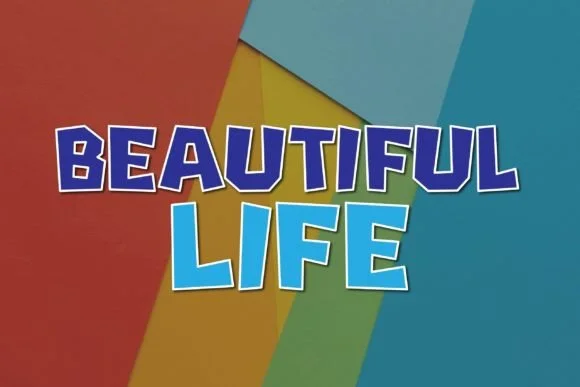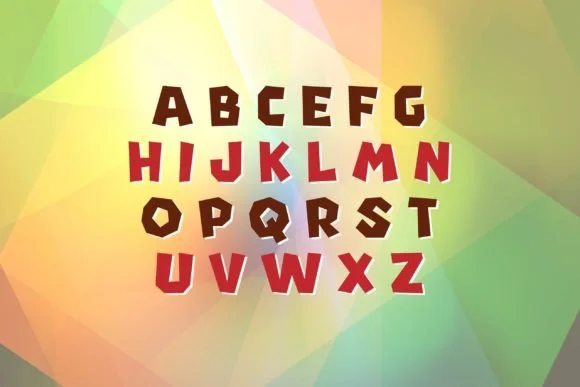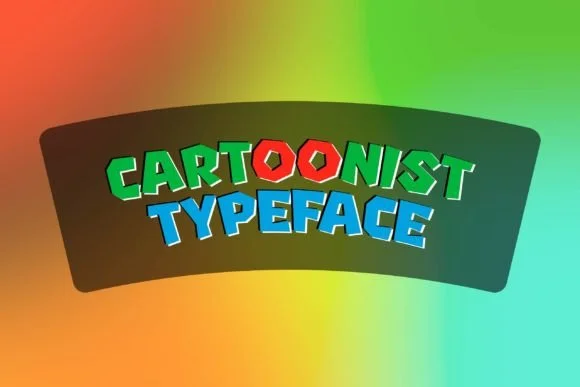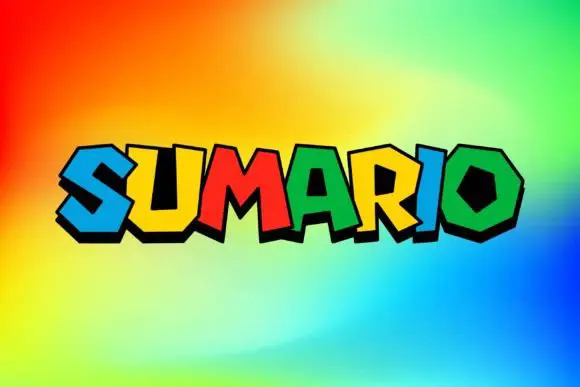
Are you a fan of Cartoon Fonts? Then Sumario font could be your first choice. It is a decorative font with a Gothic and stylish flair, exuding a cartoon-like quality that makes it stand out. It is designed by Abu Hasnat in 2024. This font looks similar to SUPER MARIO movie and games font.
Sumario Font Design and Aesthetics
The Sumario font is specifically tailored for use in various entertainment and design contexts. It is an excellent fit for movie titles, cartoon names, video game titles, mobile apps, and even for creating unique designs on T-shirts. The font is already used in some mobile apps.
The font features 96 meticulously crafted glyphs and 95 characters, showcasing the attention to detail and the level of craftsmanship that went into its creation.
Versatility and Usage
Sumario is an ideal choice for designers looking for a font that combines style with creativity. Its dynamic nature allows it to be used in a wide range of design applications, making it a versatile asset for any design project .
Sumario font by Abu Hasnat is a unique and playful font that can add a touch of whimsy and creativity to various design projects. With its Gothic-inspired style and cartoon quality, it is well-suited for entertainment-related designs. The font’s availability on Creative Fabrica, coupled with the benefits of a lifetime commercial license and access to a vast font library, makes it an attractive choice for designers looking to expand their typographic options.